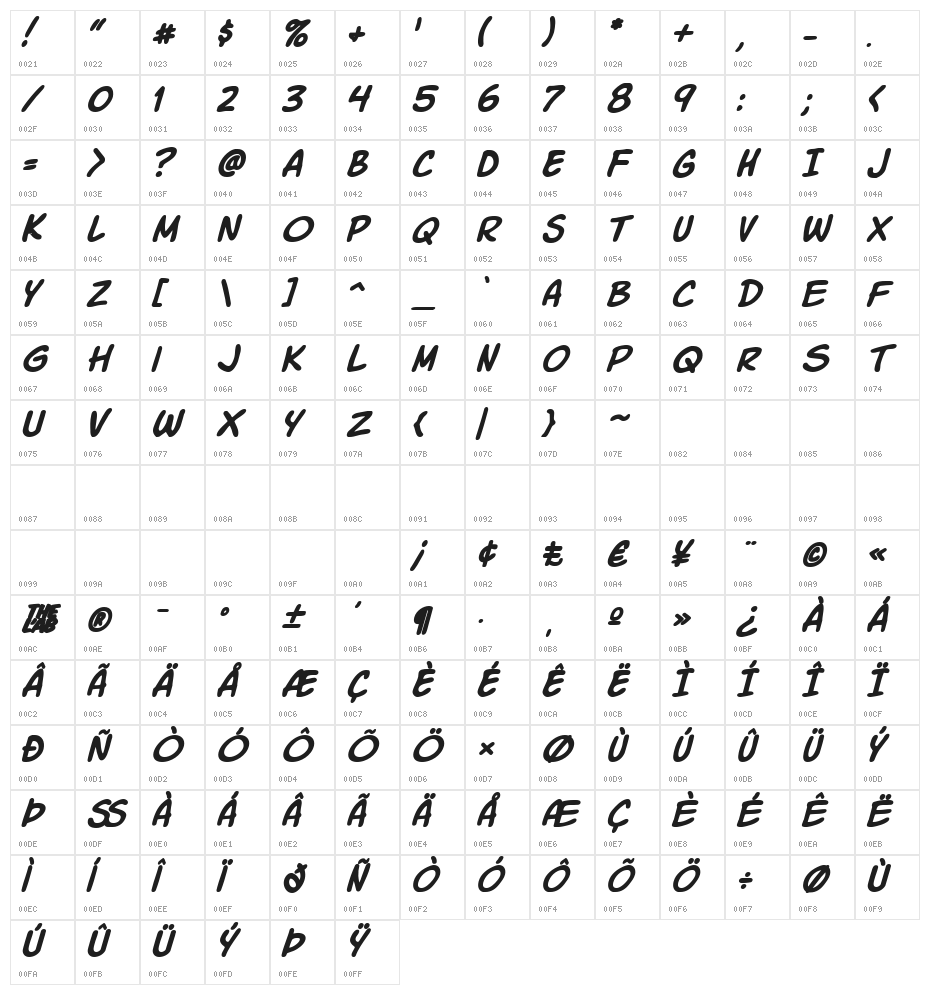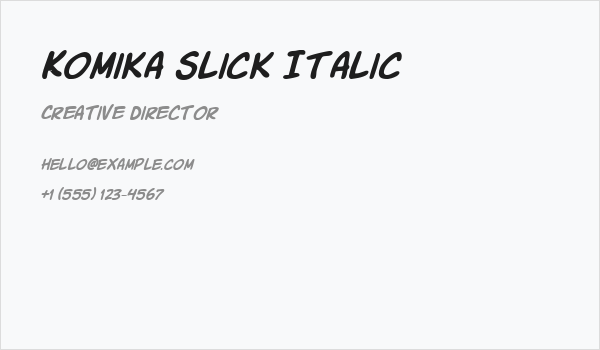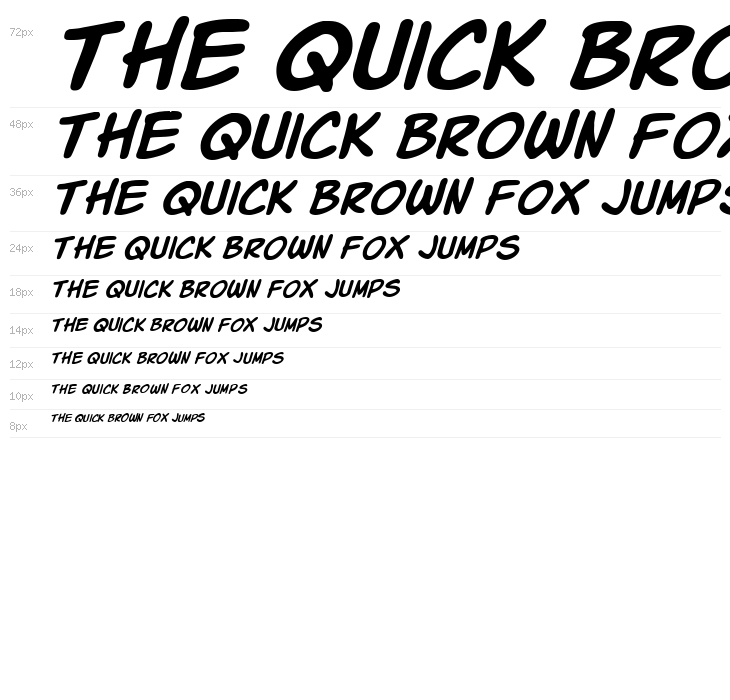
Komika Slick Italic Font
Komika Slick Italic Description
This playful and dynamic font features a bold, italicized style with smooth, rounded edges that give it a cartoonish and friendly appearance. The letters are slightly slanted, enhancing the sense of motion and energy. The strokes are consistent in thickness, providing a uniform look across all characters. This font includes both uppercase and lowercase letters, numerals, and a variety of special characters, making it versatile for different uses. Its informal and approachable design makes it ideal for projects that require a fun and engaging aesthetic.
| Overall Style | Playful, Cartoonish |
| Proposed Projects | Ideal for comic books, children's books, playful branding, and informal posters. |